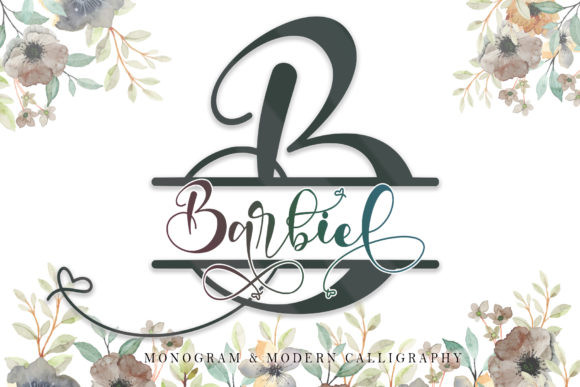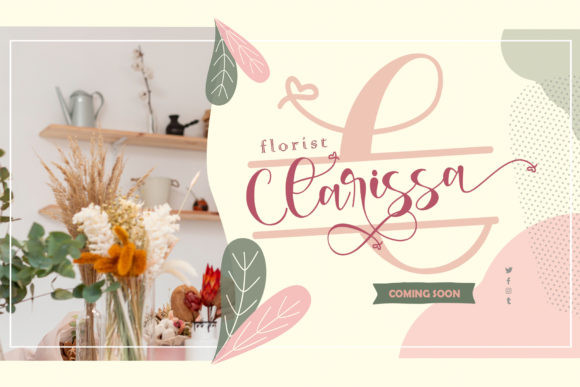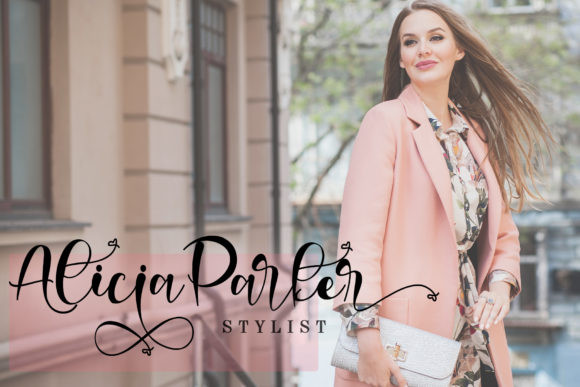
Barbiel Font
Barbiel is a romantic and festive handwritten font with a beautiful monogram. It is ideal for holiday-themed greeting cards and for any crafting project that requires a dreamy touch. This font is PUA encoded which means you can access all of the glyphs and swashes with ease!